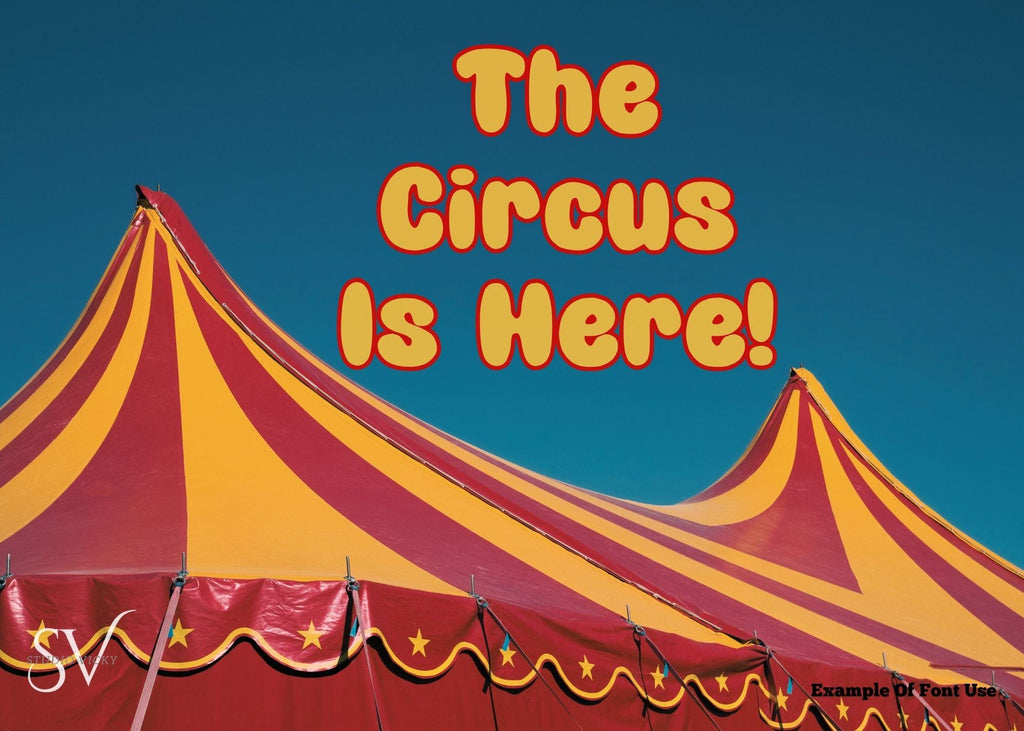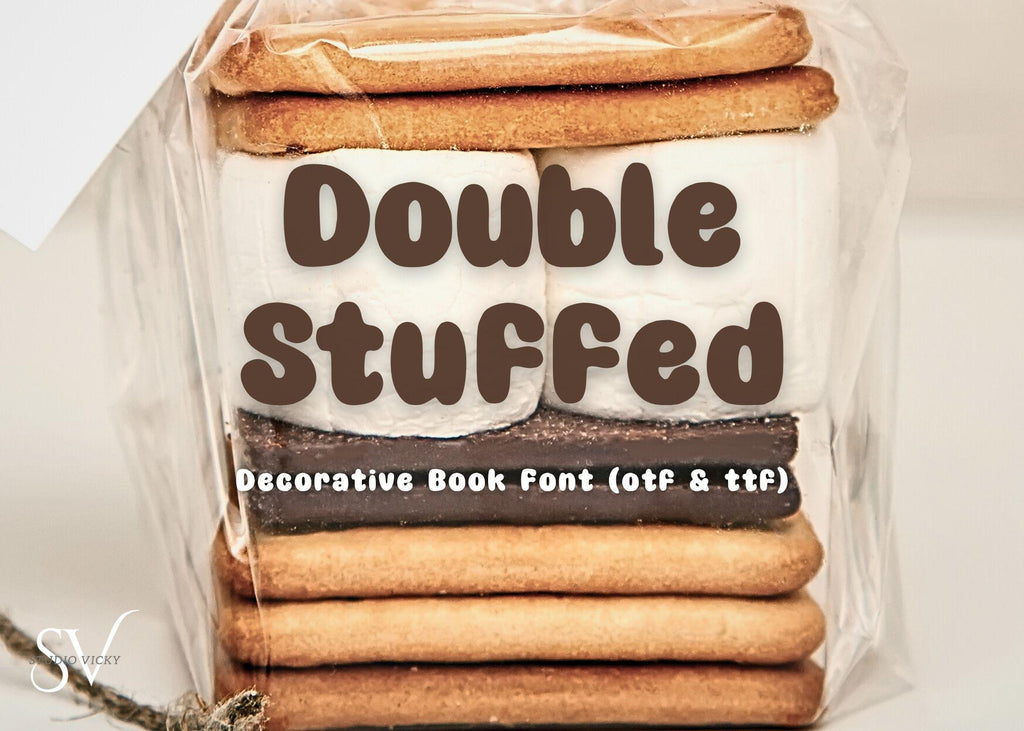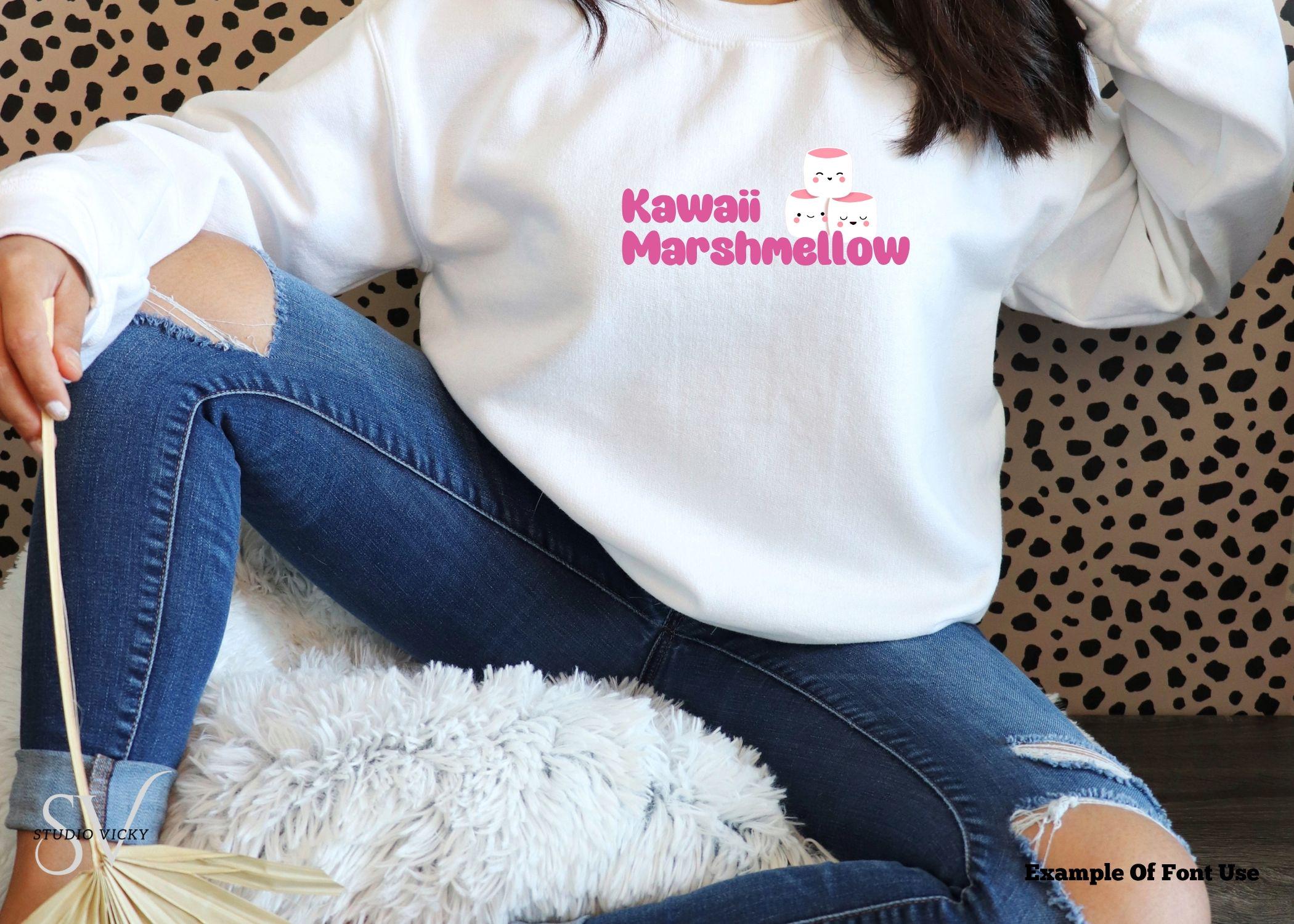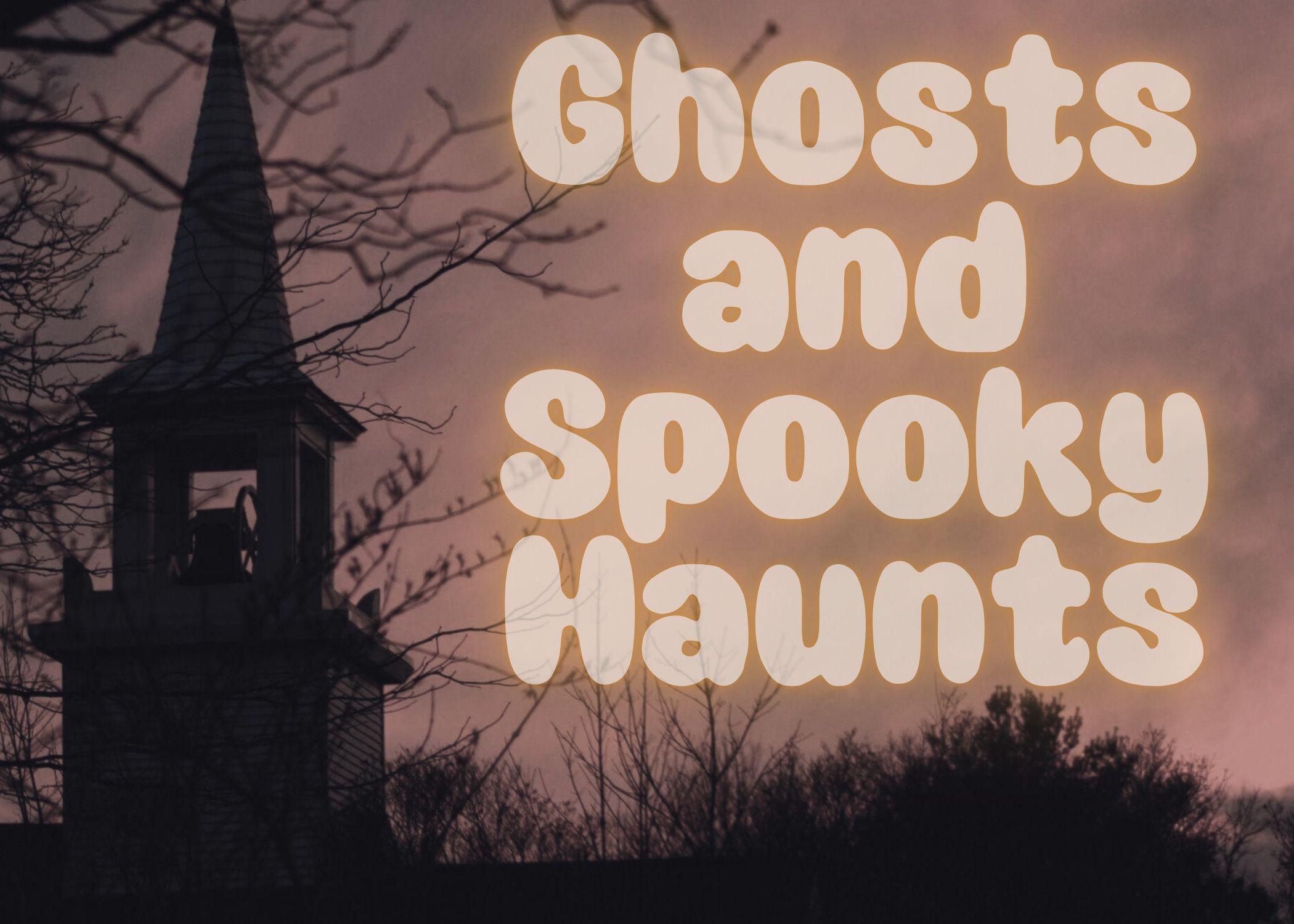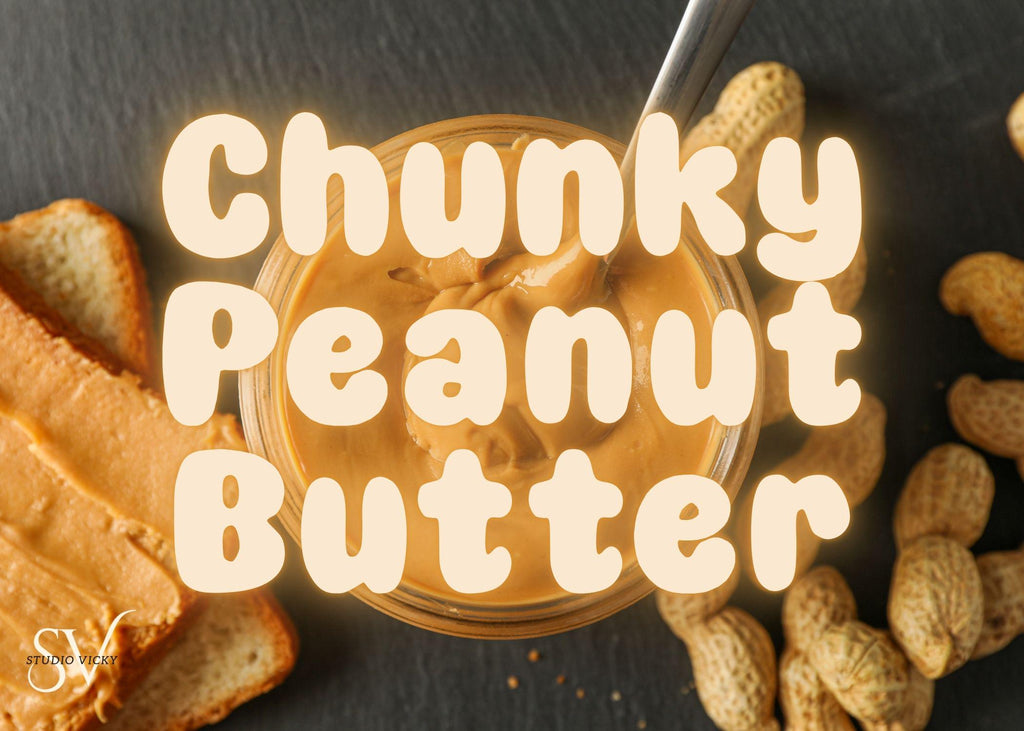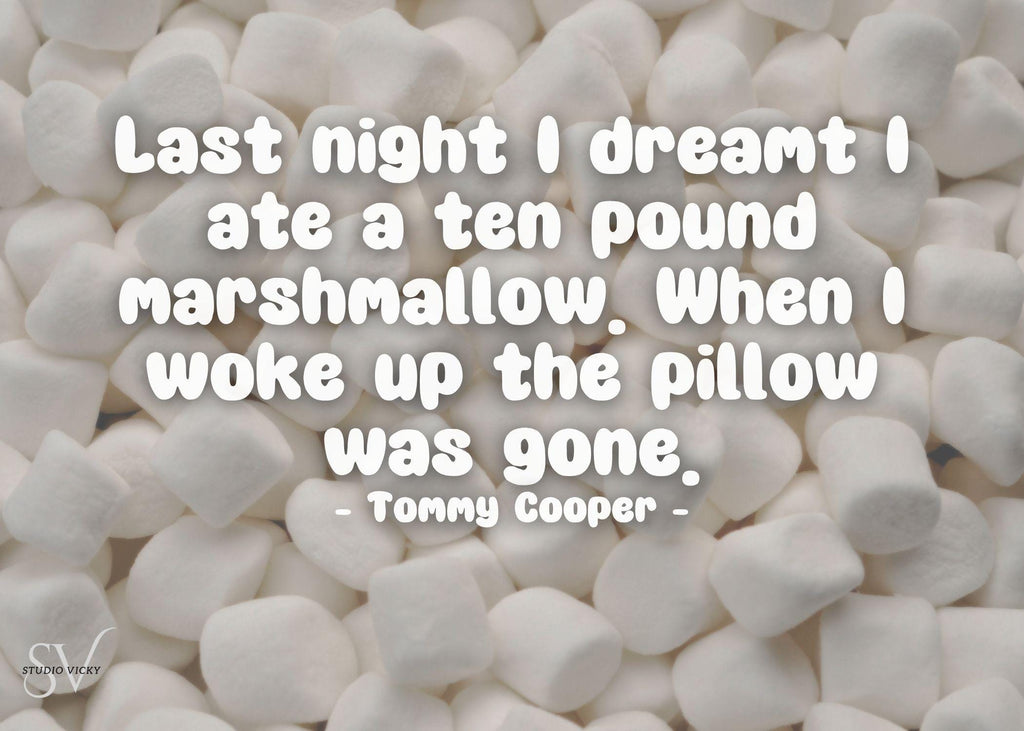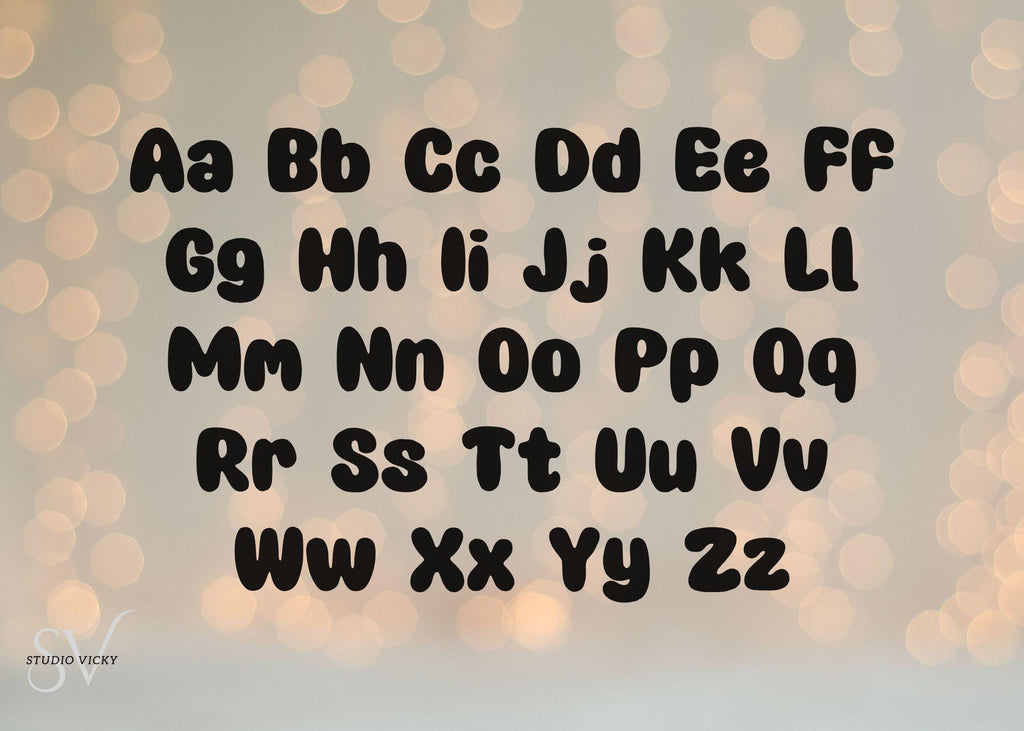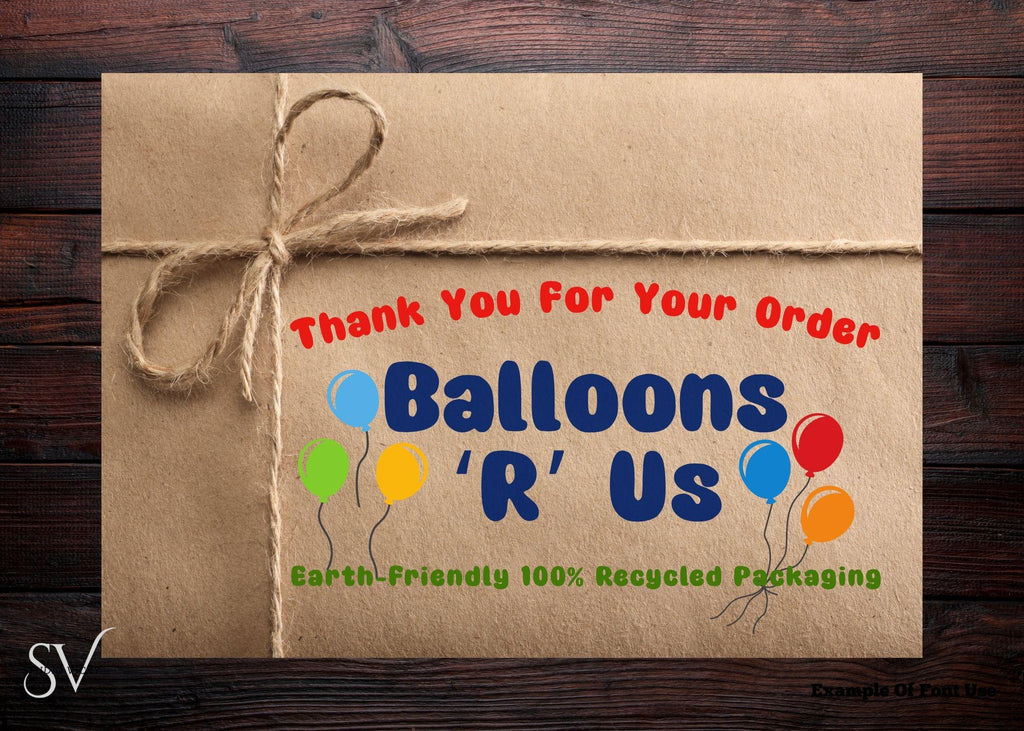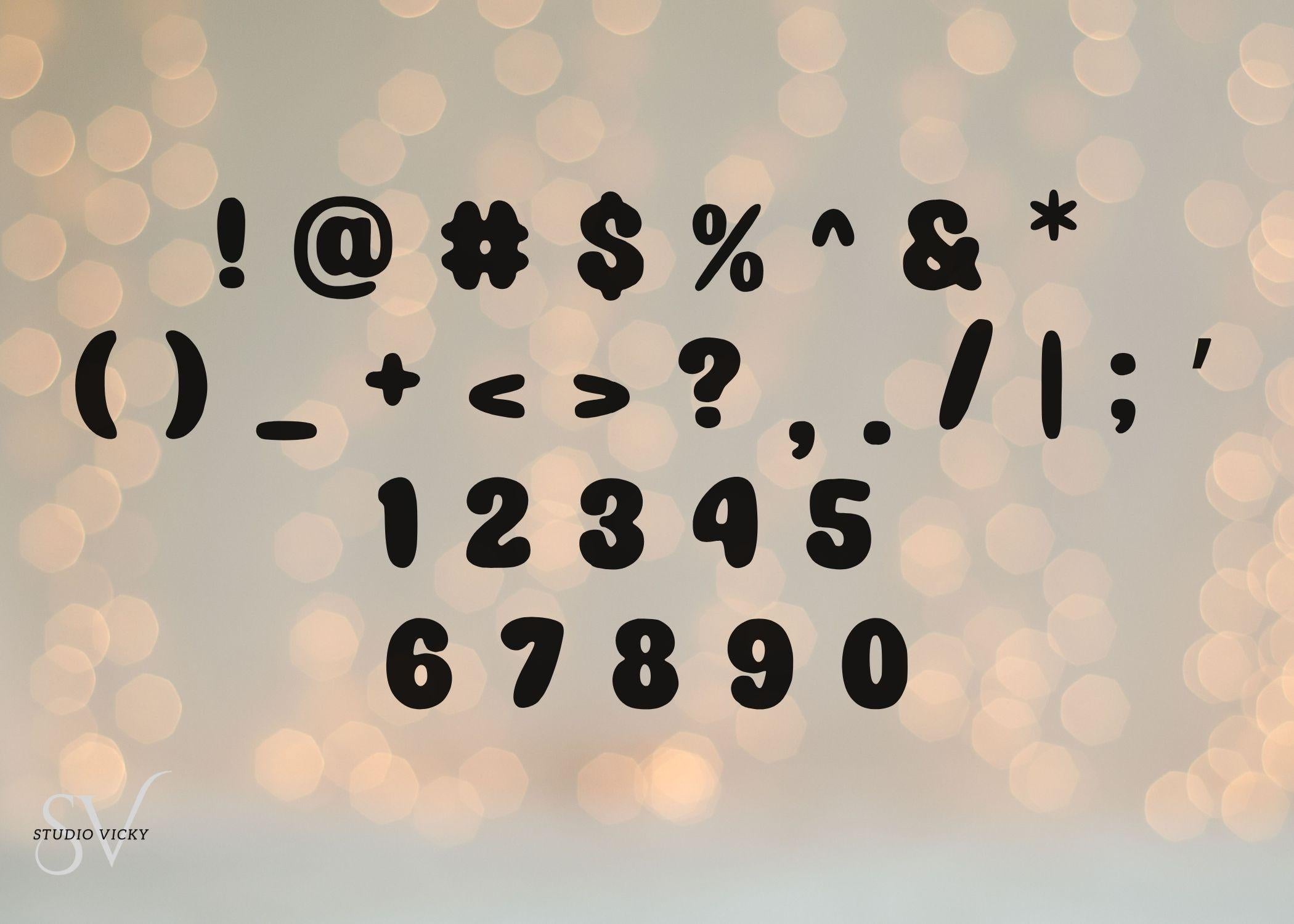
Get ready to add some extra flavor to your designs with Double Stuffed, a chunky, bold decorative font that’s bursting with personality! This fun display typeface is thick, sweet, and totally irresistible... just like your favorite treat.
With its rounded curves and cheerful vibe, Double Stuffed is made for eye-catching headlines, playful product packaging, party invitations, social posts, and anything that needs a little extra oomph. Whether you’re designing for kids, holidays, birthdays, or branding with a bold twist, this font delivers maximum impact in a super friendly style.
✔️ Smooth edges for clean cuts and crisp prints